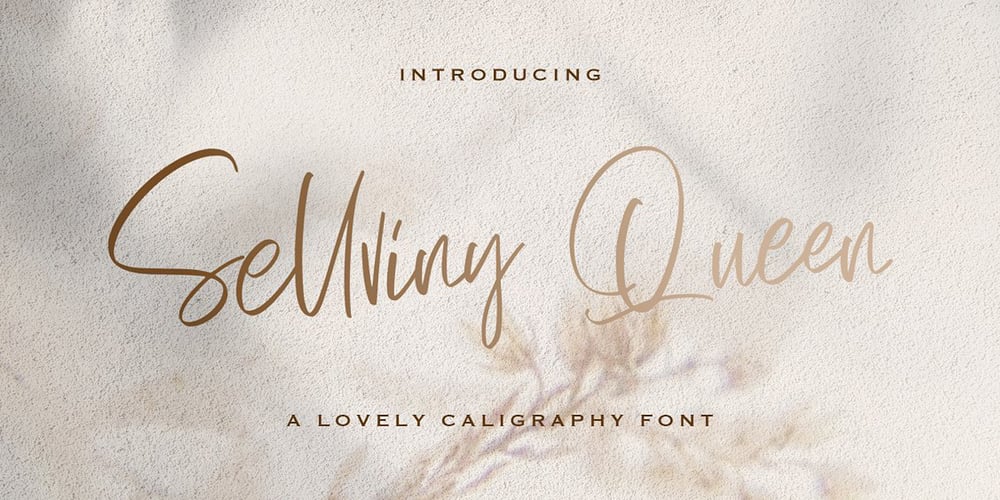
Sellviny Queen Font Family was designed by Virgiawan Listanto and published by Stringlabs Creative Studio. Sellviny Queen contains 1 styles and family package options. Sellviny Queen feels equally charming and elegant. It looks stunning on wedding invitations, thank you cards, quotes, greeting cards, logos, business cards and every other design which needs a handwritten touch.